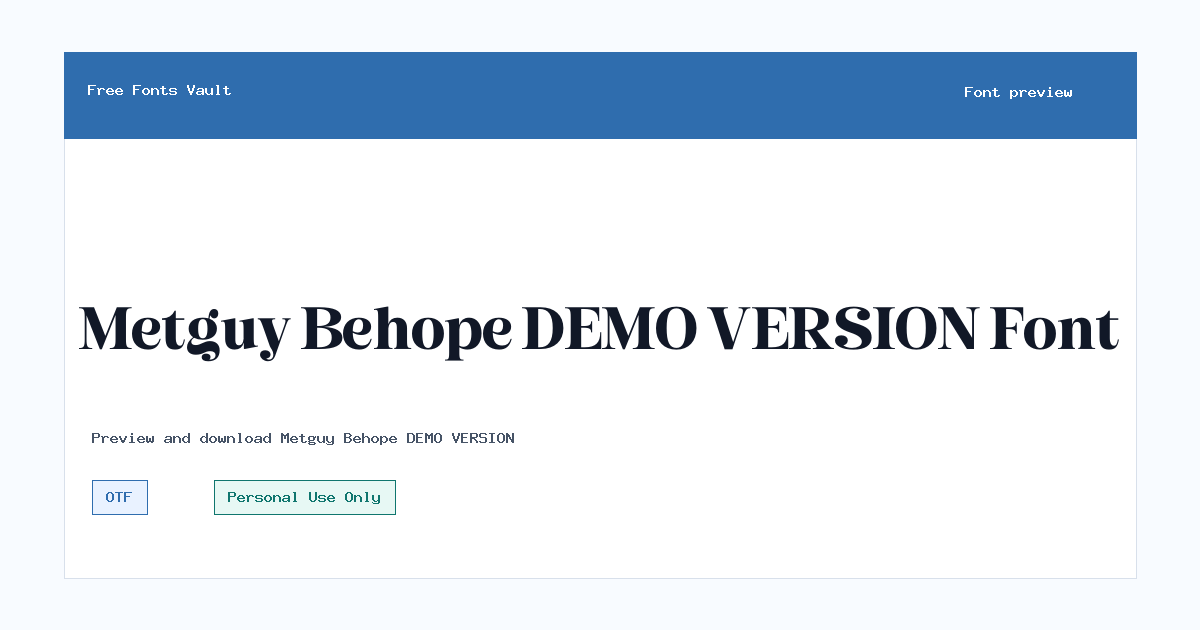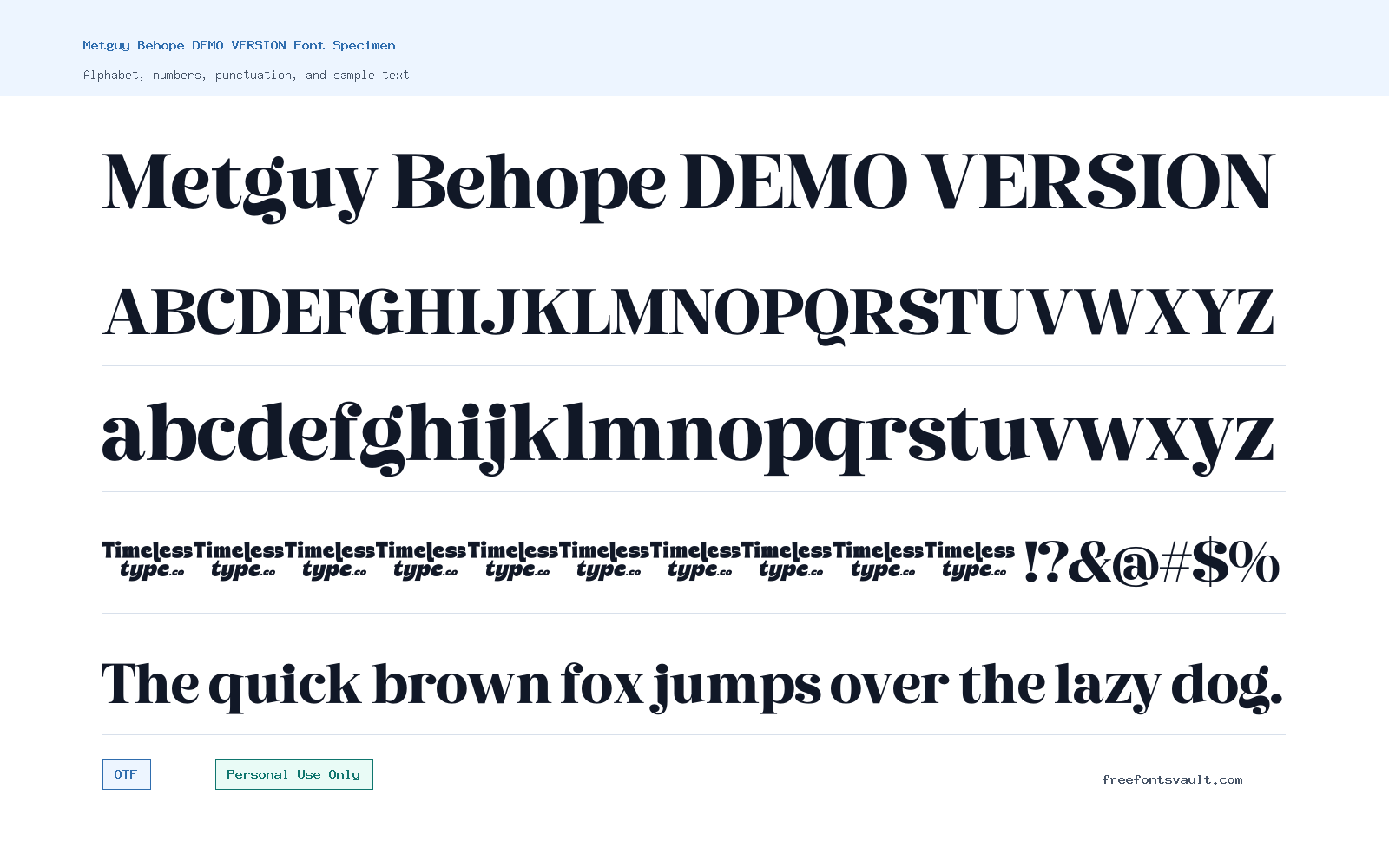
Metguy Behope DEMO VERSION
- Designer Heru Utama Putra
- Foundry TimelessType
Metguy Behope DEMO VERSION font.
Metguy Behope DEMO VERSION is a personal-use serif font connected with Heru Utama Putra and TimelessType. It is best approached as a demo font for testing display typography, short wording, and layout ideas before deciding whether you need a full license.
About Metguy Behope DEMO VERSION
Metguy Behope DEMO VERSION is listed as a serif font, so it is a better fit for expressive text than for long blocks of small body copy. Use the preview box to test the exact words you plan to design with, especially names, titles, brand-style phrases, invitations, quote graphics, packaging mockups, or social posts. With any demo version, the safest process is to check how the available characters, spacing, punctuation, and accents behave before building a final design around it.
- Serif font style suited to display text, headings, and short design phrases
- Personal design mockups, practice layouts, and non-commercial artwork
- Headlines, invitation text, quote graphics, packaging drafts, and title treatments
Try the font in the live preview with your actual project text before downloading. Check uppercase and lowercase shapes, numbers, punctuation, spacing between awkward letter pairs, and readability at the size you plan to use. For longer layouts, pair it with a simple sans serif or quiet text face so the serif display style stays focused on titles and accents.
What kind of font is Metguy Behope DEMO VERSION?
It is listed as a serif font. That makes it more suitable for display text, headings, and short phrases than for dense paragraphs.
Who designed Metguy Behope DEMO VERSION?
The font is credited to Heru Utama Putra, with TimelessType listed as the foundry.